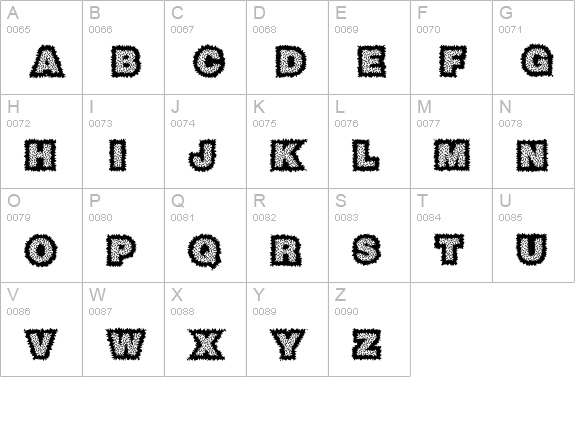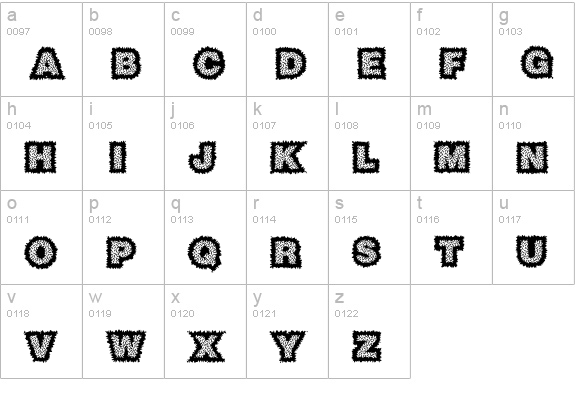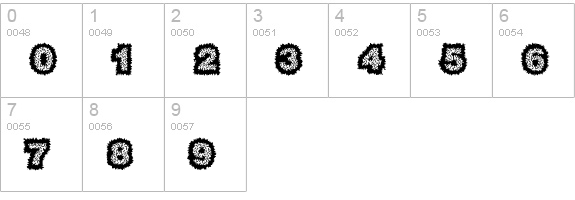
Sasquatch Font Details
Introducing Sasquatch font, a captivating and mysterious typeface that will leave you spellbound. With its bold and rugged letterforms, Sasquatch font embodies the essence of the legendary creature it is named after. This font is the perfect choice for those seeking to add a touch of adventure and intrigue to their designs. Sasquatch font is not only visually stunning but also incredibly versatile. Whether you are working on a logo, poster, or branding project, this font will effortlessly elevate your design to new heights. Its distinctive and organic shapes will grab attention and make a lasting impression. What sets Sasquatch font apart is not just its striking aesthetics, but also the fact that it is freely available to download at FontsMarket.com. Yes, you read that right - this remarkable font can be yours without any cost! We believe in the power of creativity and accessibility, which is why we are thrilled to offer Sasquatch font for free. Don't miss out on the opportunity to bring a touch of mystery and adventure to your designs. Download Sasquatch font today and unleash your imagination. Whether you're a professional designer or a passionate hobbyist, this font will become an invaluable asset in your creative arsenal. So, what are you waiting for? Embark on a typographic journey like no other with Sasquatch font. Download it now at FontsMarket.com, and get ready to captivate your audience with its awe-inspiring presence.